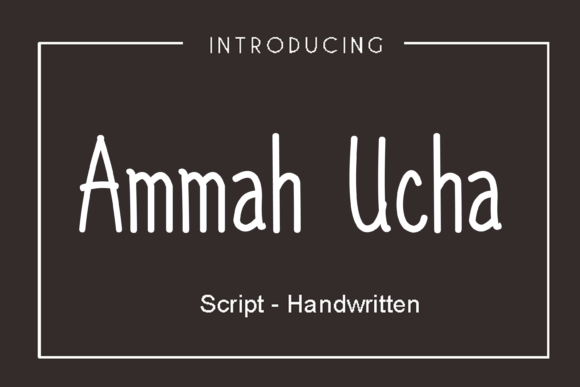
Dive into the realm of visual allure with Ammah Ucha Font, a captivating script font ready to infuse a touch of charm and elegance into your creative projects. Beloved by high school students for its youthful and expressive style, Ammah Ucha Font exudes uniqueness and sophistication.
Crafted by the talented nuraisyahamalia1729, this handwritten font boasts an enchanting personality, perfectly suited for logos that demand attention, branding that speaks volumes, and social media posts that radiate creativity. Its versatility extends to crafty DIY projects, adding a personal touch that elevates your creations.
With Ammah Ucha Font, you'll effortlessly evoke emotions and convey messages with clarity and impact. Its enchanting curves and delicate strokes dance across the page, capturing the viewer's imagination and leaving a lasting impression.
Say goodbye to ordinary fonts and embrace the extraordinary with Ammah Ucha Font. Experience the joy of creating designs that resonate with your audience, leaving them spellbound and eager for more. Whether you're a seasoned designer or just starting your creative journey, Ammah Ucha Font is the perfect companion, guiding you towards visual excellence.
Join the growing community of creatives who have discovered the magic of Ammah Ucha Font. Transform your designs, captivate your audience, and leave an enduring legacy of beauty. Start your creative revolution today and witness the transformative power of Ammah Ucha Font.